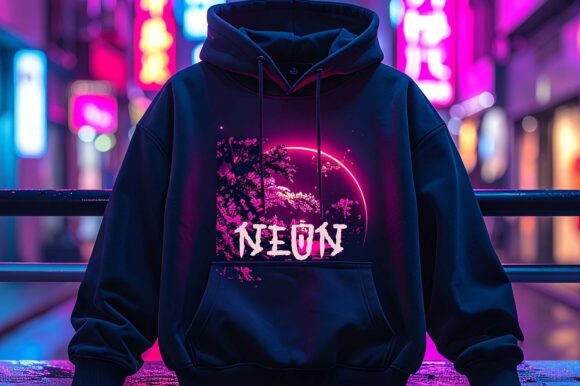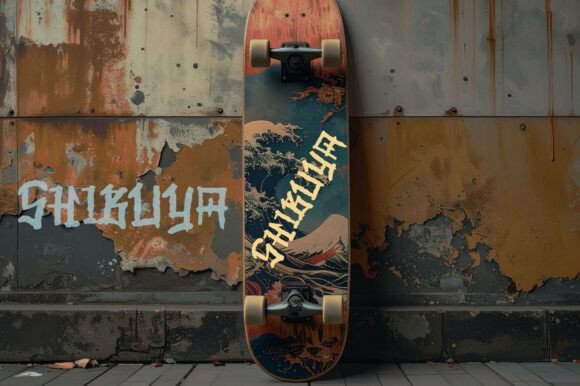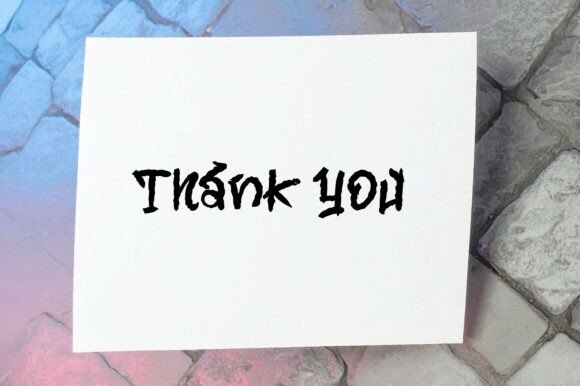
The Birth of a Global Aesthetic: Baby Oxen Font
Have you ever been inspired by the vibrant street art scene in cities like Tokyo or Hong Kong? For designers, the fusion of urban graffiti and traditional East Asian calligraphy can be a powerful catalyst for creativity. That’s exactly what happens when you bring the Baby Oxen Font into the mix – a display font that masterfully blends the raw energy of the streets with the elegant lines of traditional Asian scripts.
This font is more than just a design tool; it’s a key to unlocking a unique and modern global aesthetic. With its bold, brush-stroke-like letterforms and intentional imperfections, Baby Oxen Font is perfect for designers who want to make a bold, unconventional statement in their work.
Baby Oxen Font Key Features
- Font Style: Handwritten, Script
- Size: Supports various font sizes, including small caps and large font sizes
- Resolution: Supports high-resolution displays, ideal for printing and digital use
- Unique Characteristics: Includes a range of ligatures, swashes, and flourishes to create a unique and personalized look
- Character Set: Supports a wide range of languages, including Latin, Greek, and Cyrillic scripts
Baby Oxen Font Review
Overall, I think the Baby Oxen Font is a unique and charming font that can add a playful touch to various designs. Here are some things that I think work well:
- ✨ The font’s whimsical and hand-drawn feel is perfect for creating a sense of warmth and personality in a design.
- ✨ The font’s high x-height makes it easy to read, even at smaller font sizes.
- ✨ The font’s compatibility with most operating systems and devices makes it a versatile choice for designers.
- ⚠️ The font may not be suitable for formal or professional designs, as it can come across as too playful or childish.
- ⚠️ The font’s irregularities and imperfections may not be suitable for designs that require a high level of precision or accuracy.
Overall, I think the Baby Oxen Font is a great choice for designers who want to add a touch of whimsy and personality to their designs. While it may not be suitable for every project, it’s a versatile and charming font that can add a lot of character to a design.
Some common use cases for Baby Oxen Font include:
- Handmade crafts and DIY projects
For optimal use, pair Baby Oxen Font with whimsical illustrations and playful design elements.
Alternatives to Baby Oxen Font
Great Vibes Font is a modern, handwritten font that conveys a sense of freedom and adventure. It is ideal for use in creative projects, such as branding, advertising, and editorial content. Great Vibes Font is more playful and energetic than Baby Oxen Font, making it suitable for designs that require a lively and carefree feel.
Carolyna Pro Font is a high-end, elegant script font that exudes sophistication and refinement. It is perfect for use in luxury branding, high-end advertising, and premium editorial content. Carolyna Pro Font is more formal and polished than Baby Oxen Font, making it suitable for designs that require a touch of class and sophistication.
Alex Brush Font is a beautiful, handwritten script font that conveys a sense of warmth and approachability. It is ideal for use in creative projects, such as branding, advertising, and editorial content. Alex Brush Font is more rustic and earthy than Baby Oxen Font, making it suitable for designs that require a cozy and inviting feel.
Dancing Script Font is a lively, handwritten script font that conveys a sense of joy and celebration. It is perfect for use in creative projects, such as branding, advertising, and editorial content. Dancing Script Font is more energetic and playful than Baby Oxen Font, making it suitable for designs that require a lively and festive feel.
Project Ideas with Baby Oxen Font
Project 1: Whimsical Woodland Nursery
Create a magical nursery for a baby with a woodland theme. The Baby Oxen Font will add a touch of rustic charm.
How to use Baby Oxen Font: Use the font to create a custom wall art with a phrase like “Little Woodland Explorer” or “Dream Big, Little One”. Combine with illustrations of owls, foxes, and trees to create a whimsical atmosphere.
Tips for combining with other design elements: Pair the font with a watercolor effect to give it a soft, dreamy look. Use earthy colors like green and brown to bring the woodland theme to life.